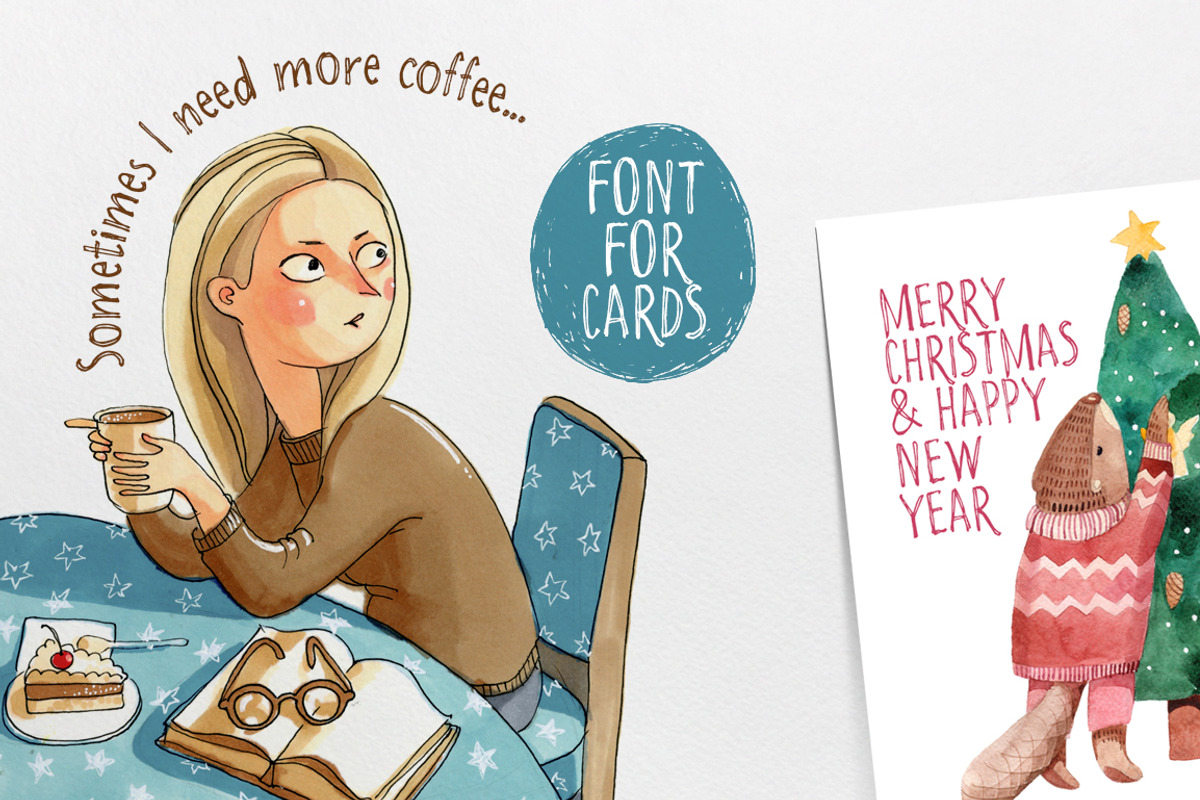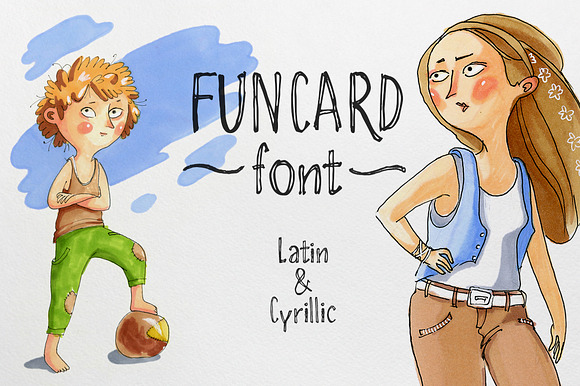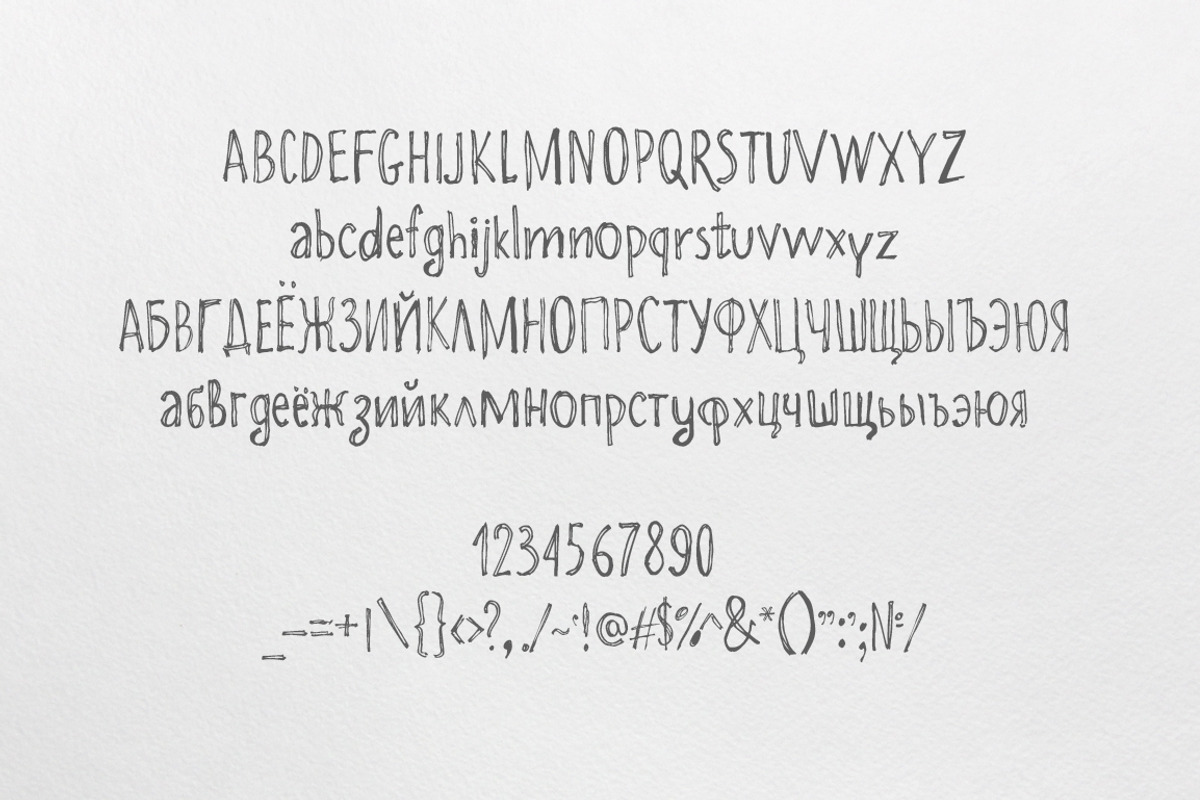
Funcard font Latin & Cyrillic
Funcard is a hand-drawn font designed by Katya Buslaeva. This font is easy to read and and looks good in the big text
Funcard font contains standard characters, lowercase, uppercase, numbers, punctuation, international characters in .otf and .ttf font files.